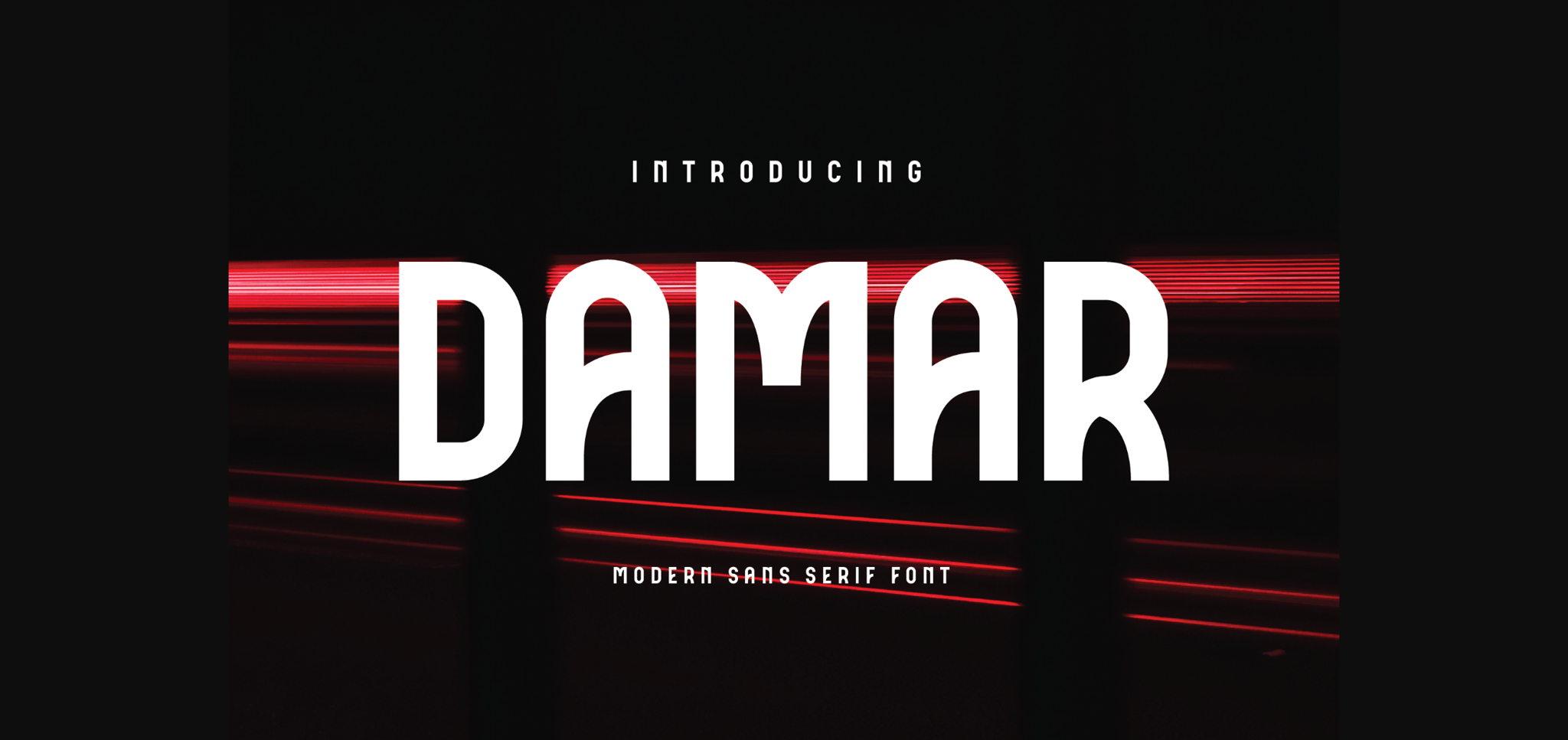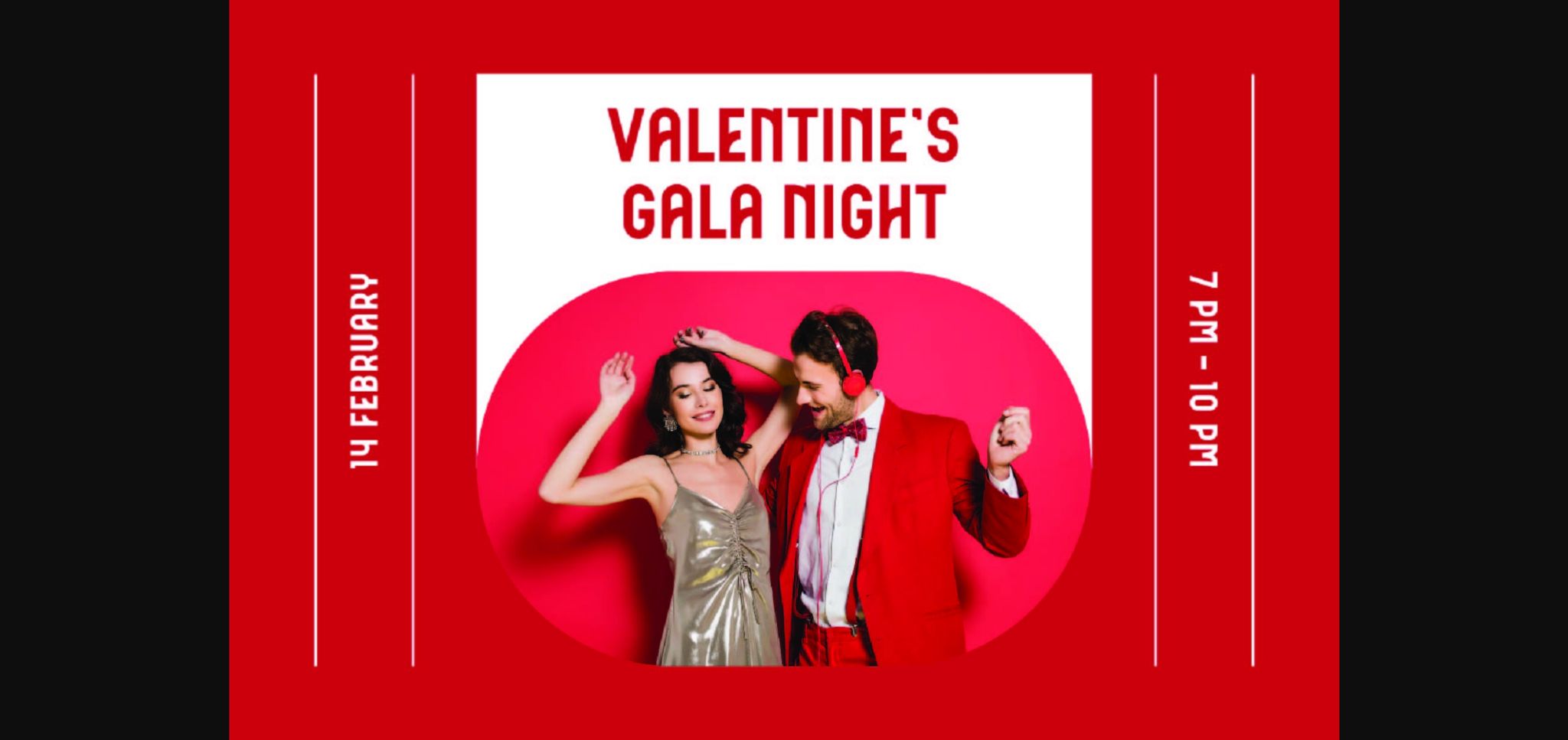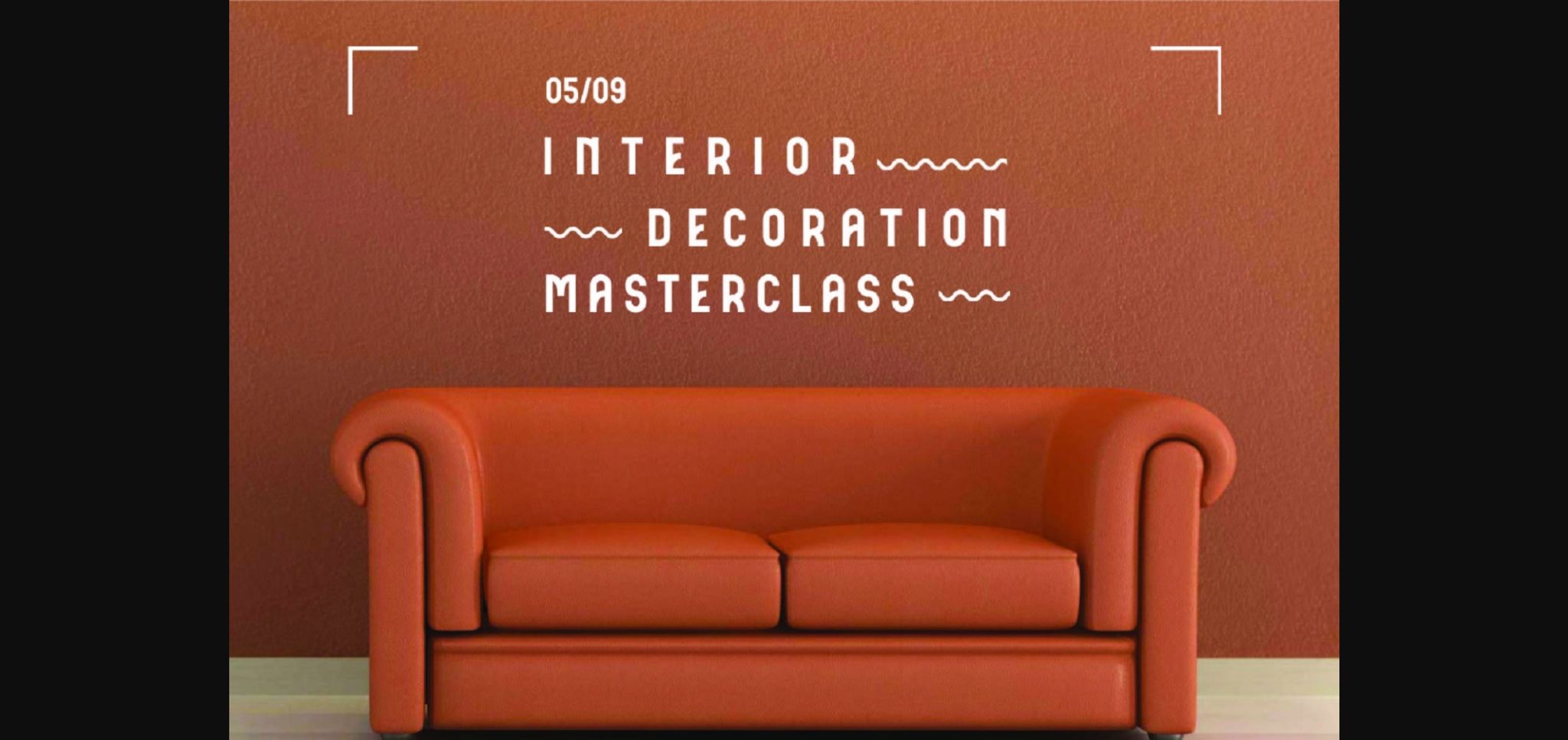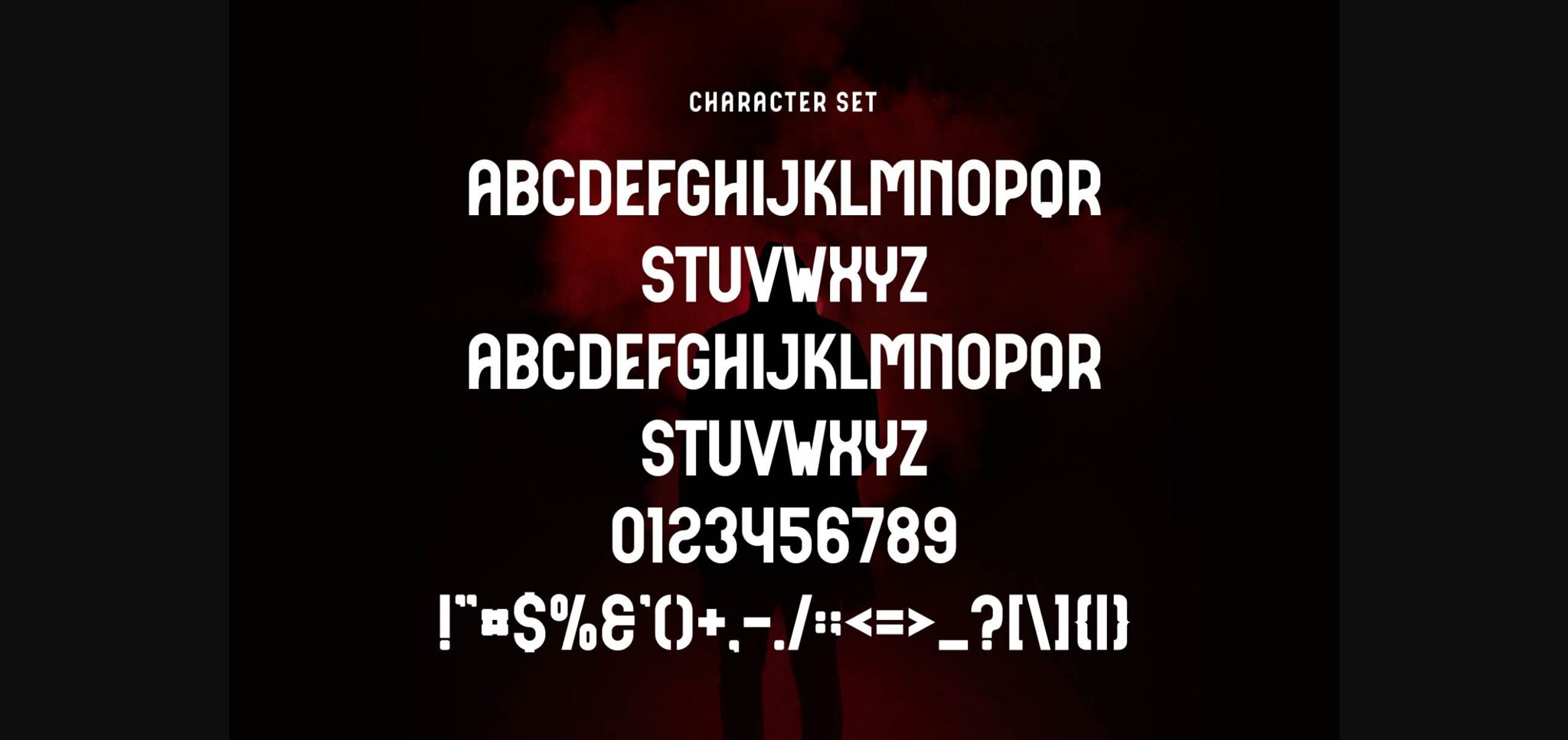
Damar Font
About Damar Font
Damar is a sans serif typeface, inspired by the famous minimalist logo perfect for the purposes of designing templates, brochures, videos, advertising branding, logos, invitation, layout design, elegant crafting, beauty design and other.